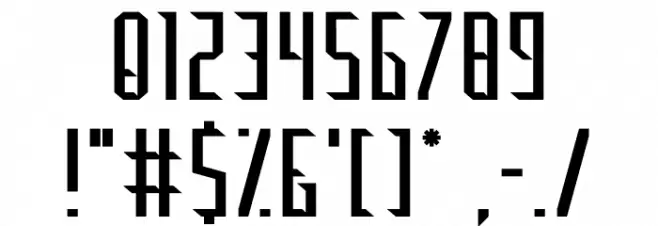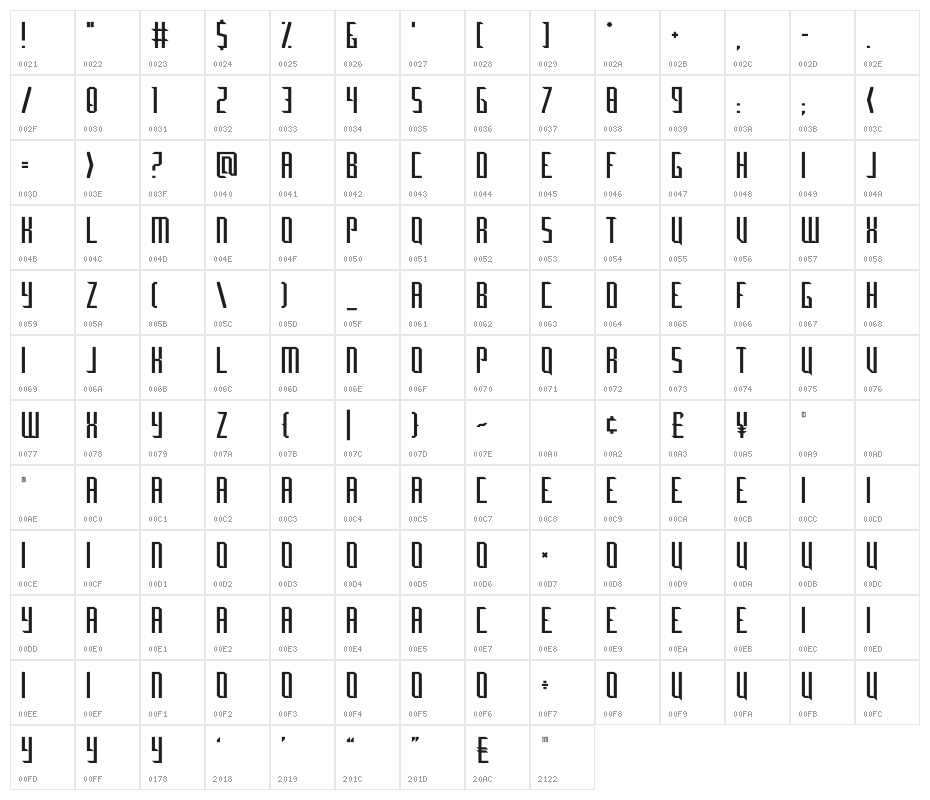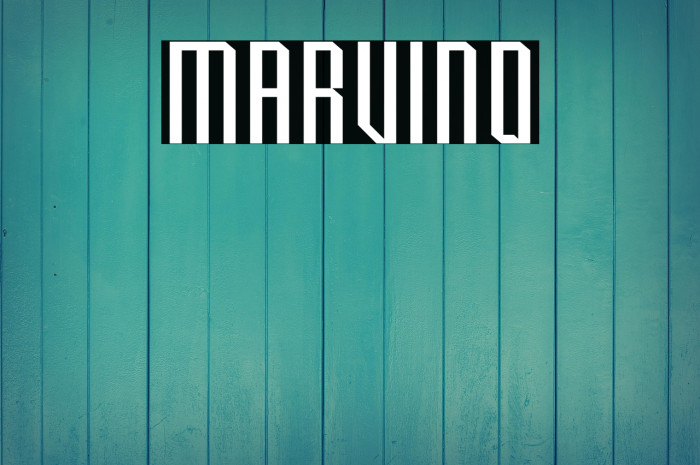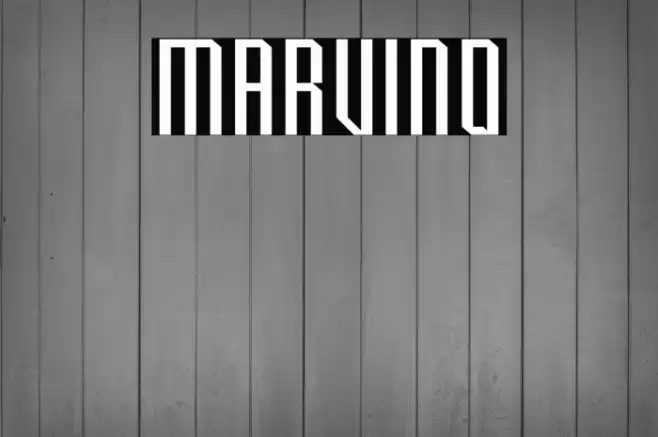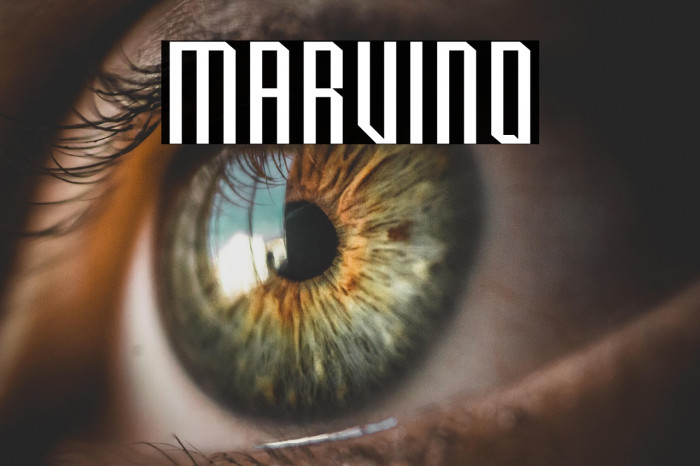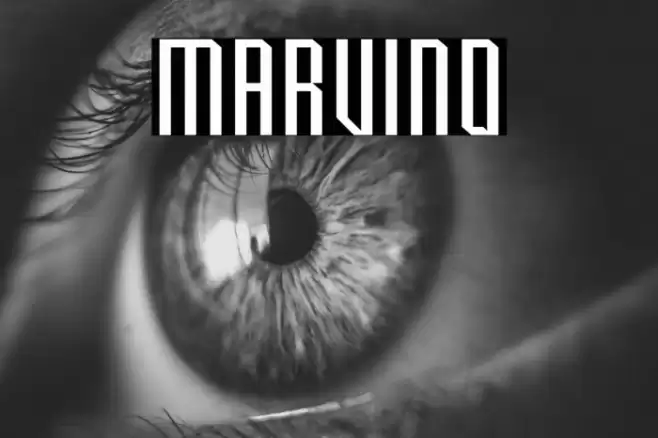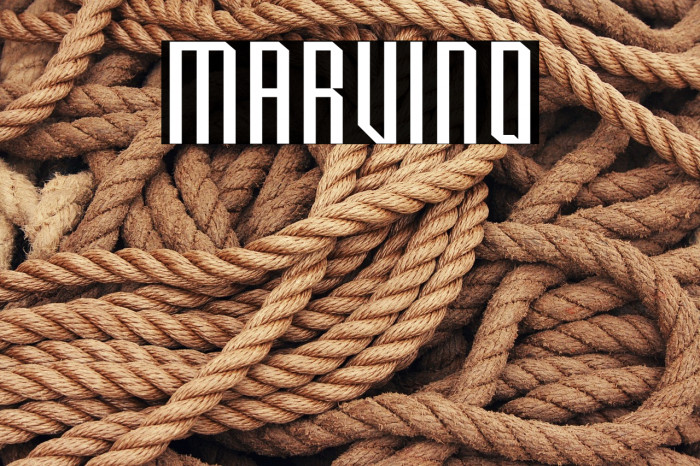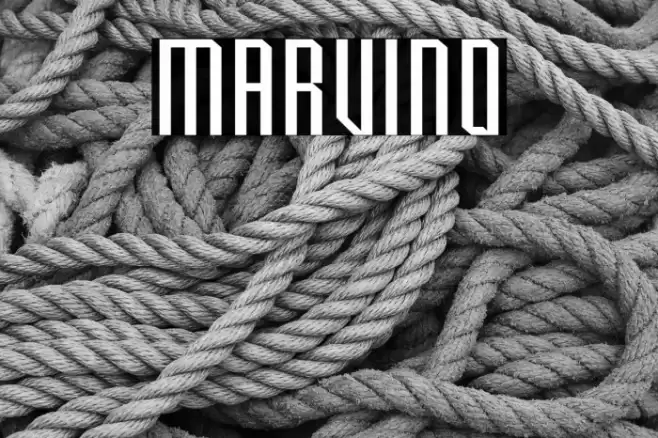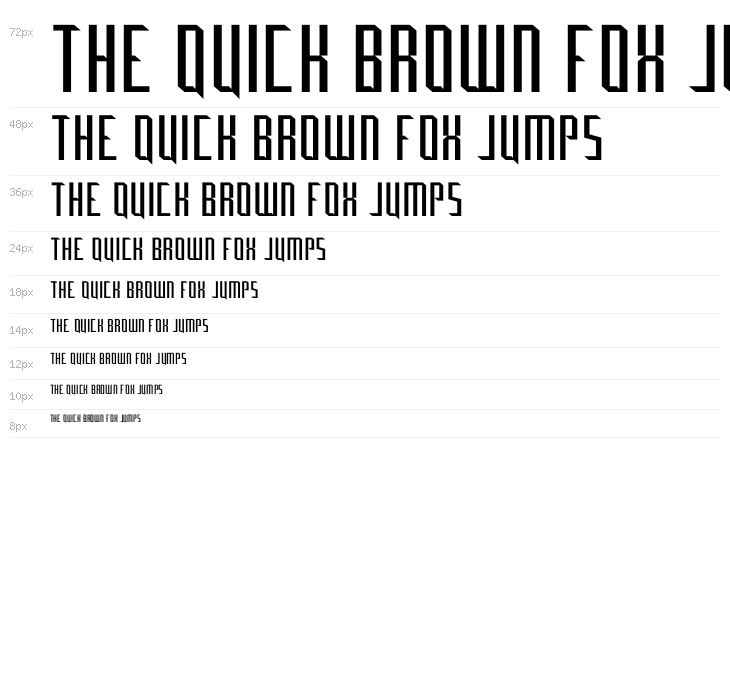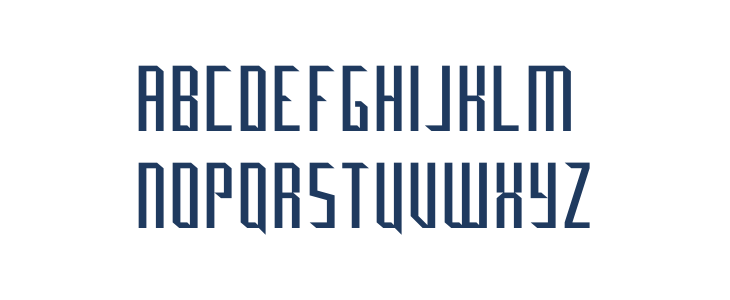
Marvino Font
Marvino Description
This font features a bold and geometric design with sharp angles and clean lines, creating a modern and futuristic appearance. The uppercase letters are tall and narrow, giving a sense of height and elegance. The lowercase letters maintain the same geometric style, ensuring consistency throughout the typeface. The numerals are distinct and easy to read, following the same angular design. Special characters are designed with the same attention to detail, making them fit seamlessly with the rest of the font. This typeface is ideal for projects that require a strong and contemporary look.
| Proposed Projects | Ideal for branding, posters, headlines, and digital interfaces that require a modern and striking appearance. |